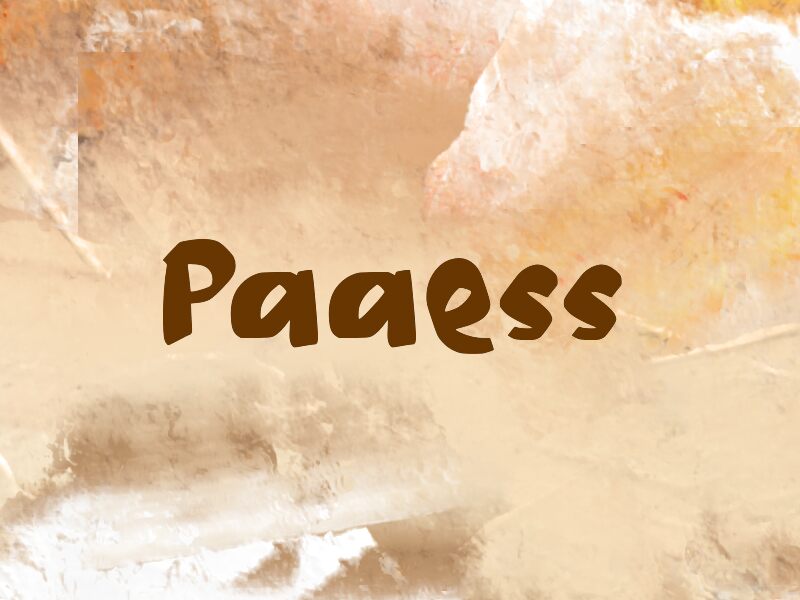
Paaess font, designed by wep, is a unique free font that draws its inspiration from rustic, informal design style. With its warm and organic appearance, this typeface comes with a relaxed, friendly look that gives every creation that would put it to use a fun, casual flair. Paaess is the result of merging careful attention to detail with years of practice, achieved with brush work, balancing it visually, and dedicating hard work and time to get the ideal message.
An excellent tool for the development of publications, poster designs, eye-catching package labels, and product logos. Bring its soothing calmness and expressed confidence to social media ads, website creations, signboards, banners, motivational quotes presentations, flyers, and headlines. It also works great in branding and packaging.
Paaess is a stylish and modern free font that is perfect for a variety of design projects. With its unique character and elegant lines, Paaess can elevate your branding, social media graphics, or any creative work that requires a distinctive typographic look.